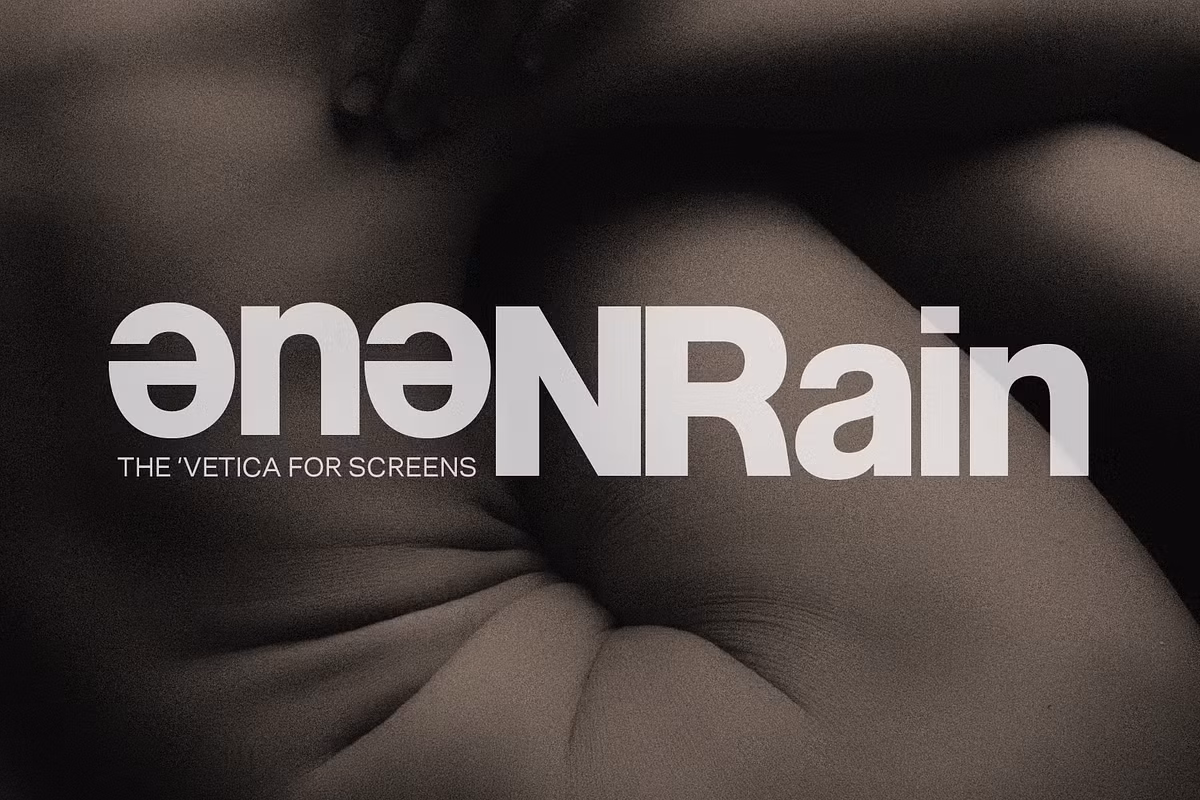
Neue Rain Sans Serif Font Free Download
Neue Rain Sans Serif Font Free Download is a sleek and modern typeface designed with clarity, simplicity, and elegance in mind. Please note: you must purchase this font for commercial use, but you can test it through a free download. With its clean lines, balanced proportions, and minimalistic aesthetic, Neue Rain is ideal for branding, editorial design, websites, packaging, and contemporary logos.
This font exudes professionalism and sophistication—perfect for designers looking to convey trust, modernity, and style in their typography. Whether you're creating a tech brand, a fashion campaign, or a polished presentation, Neue Rain Sans Serif Font Free Download offers versatility and visual harmony. Fully compatible with Adobe Illustrator, Photoshop, Canva, and other popular design platforms. Download it today for personal use and elevate your creative projects with the refined simplicity of Neue Rain.